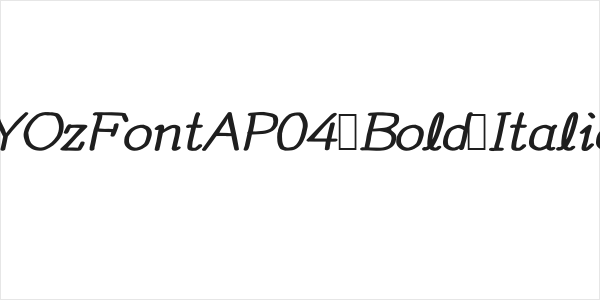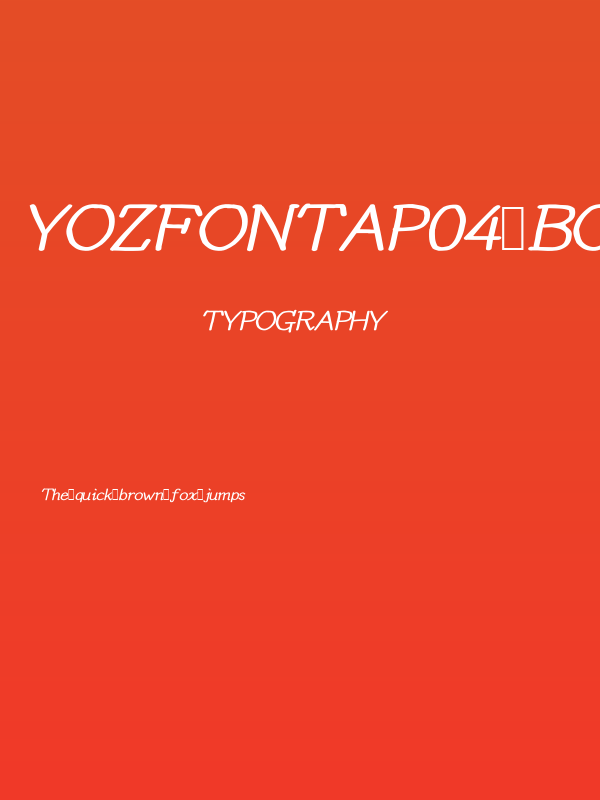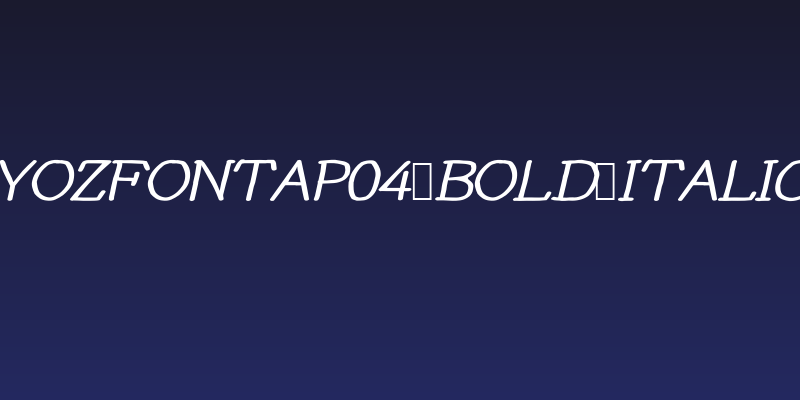
YOzFontAP04 Bold Italic Font
YOzFontAP04 Bold Italic Description
This font features a bold and italicized style, characterized by its dynamic and slanted letterforms. The uppercase letters are elegantly structured with a consistent slant, giving a sense of movement and fluidity. The lowercase letters maintain a cohesive look, with smooth curves and a slightly playful touch. Numbers are bold and clear, ensuring readability. Special characters are well-integrated, matching the overall aesthetic. The font's boldness and italic nature make it stand out, suitable for attention-grabbing designs.
| Proposed Projects | Ideal for branding, headlines, posters, and any design requiring a bold statement. |